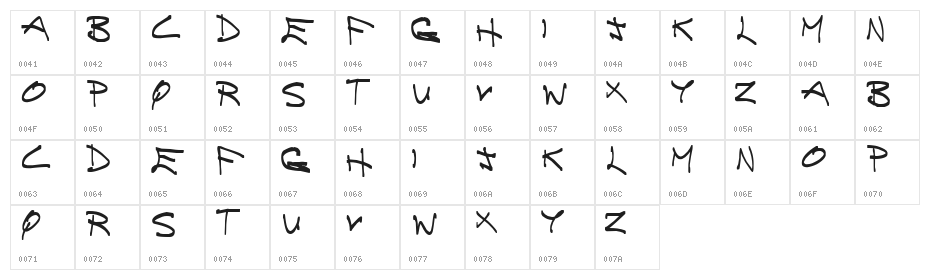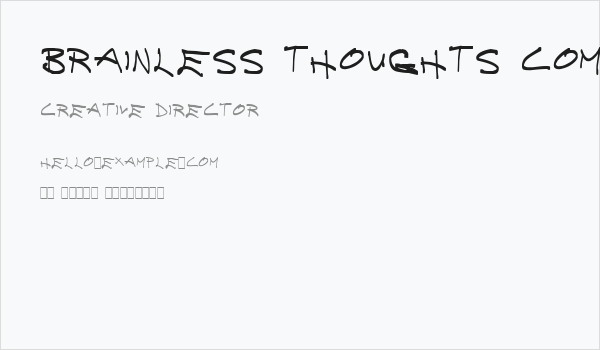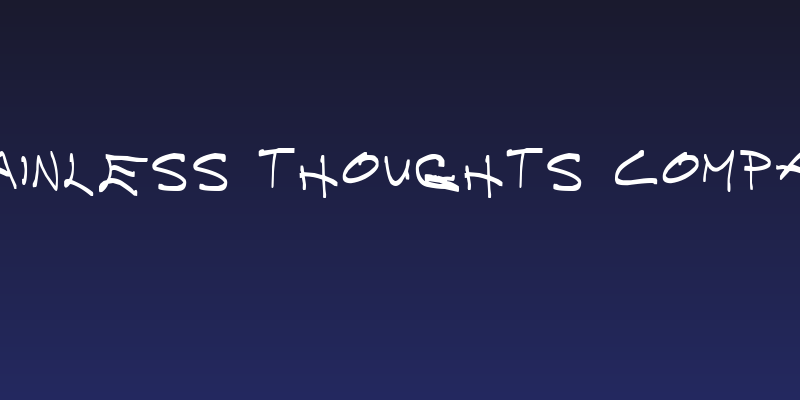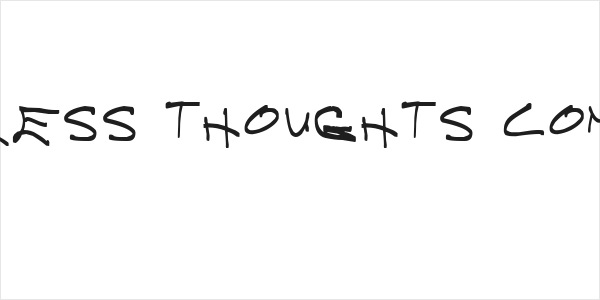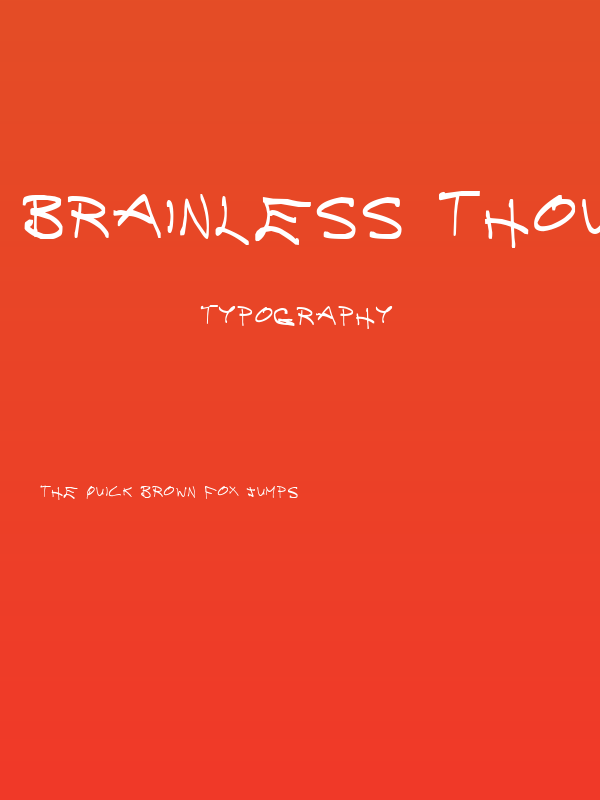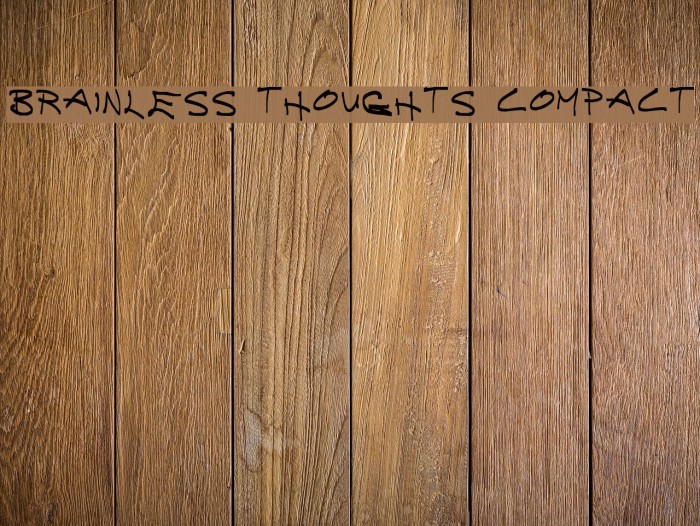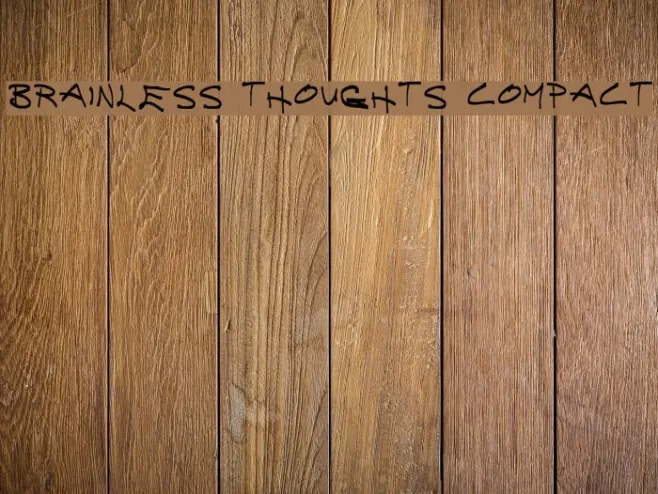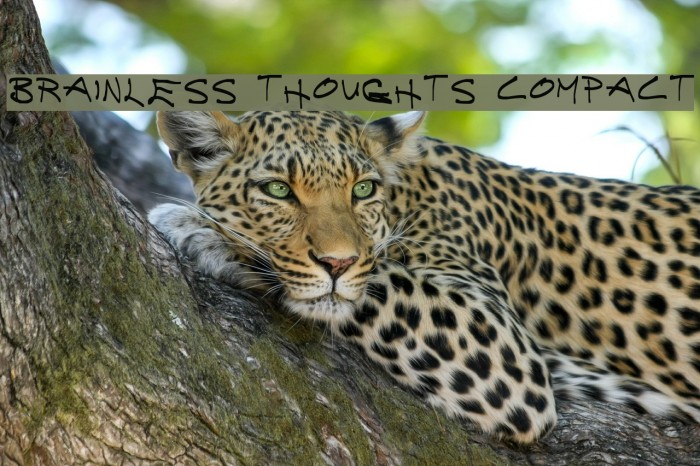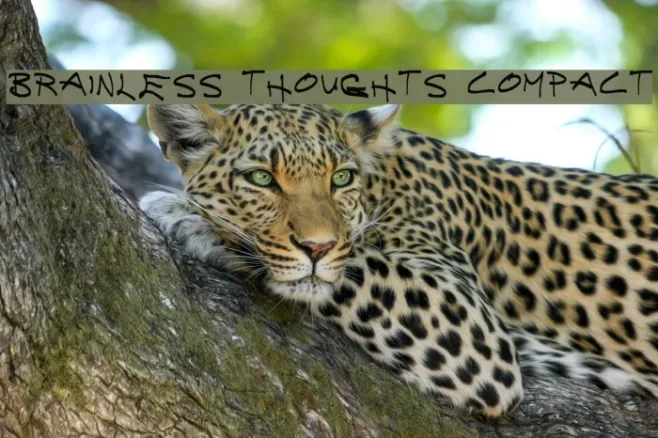
Brainless Thoughts Compact Font
Brainless Thoughts Compact Description
This font features a playful and chaotic handwritten style, characterized by uneven strokes and a casual appearance. The letters are irregularly shaped, giving a sense of spontaneity and creativity. The uppercase letters are bold and dynamic, with varying angles and a slightly distorted look. The font lacks lowercase letters and numbers, focusing solely on uppercase characters. Its unique style makes it stand out, ideal for projects that require a touch of whimsy and individuality. The overall impression is one of artistic expression and informal charm.
| Proposed Projects | Ideal for creative projects such as posters, album covers, or artistic branding that require a unique and informal touch. |